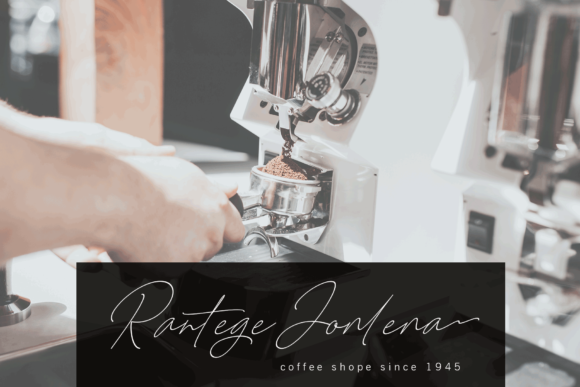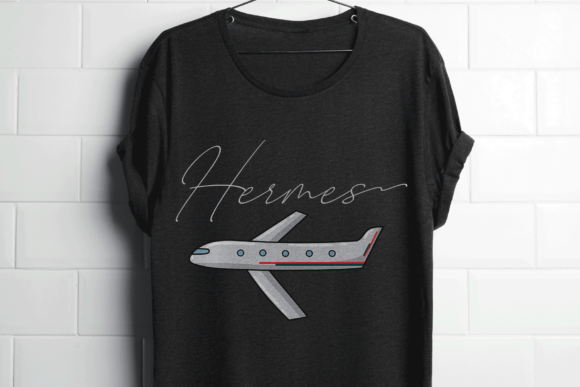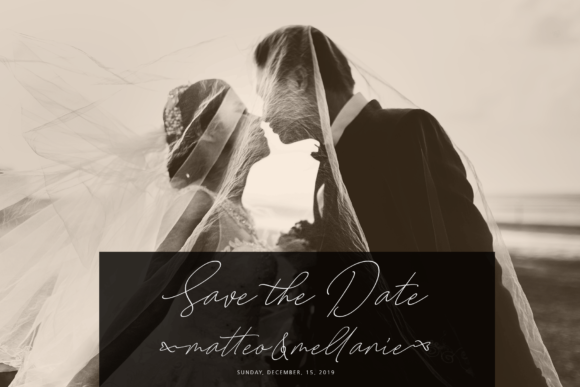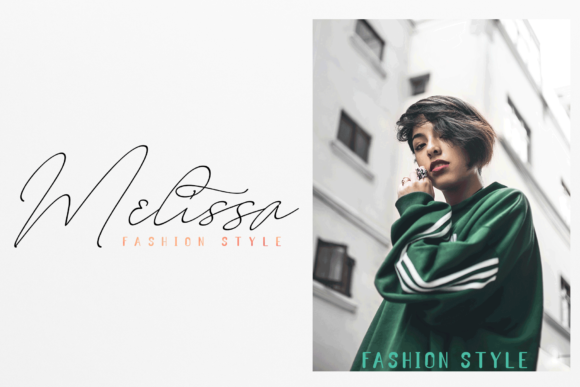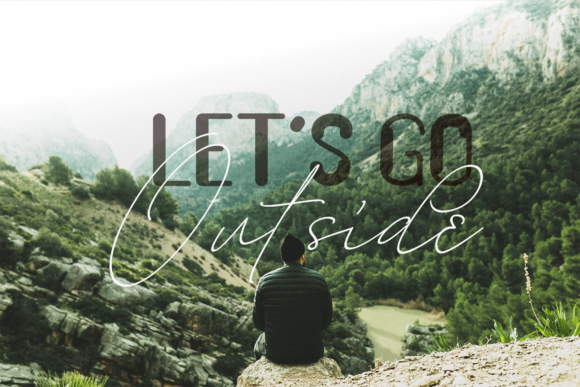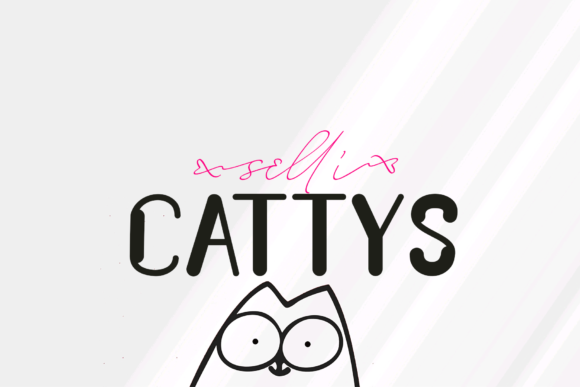
The Perfect Duo for Your Design: August Duo Font
You know that moment when you’re working on a design project and you just can’t seem to find the right font to tie everything together? The words are flowing, the ideas are coming, but the font just isn’t quite right. That’s when I discovered the August Duo Font – a beautiful combination of classic calligraphy and modern style that’s the perfect solution to all your design woes.
The August Duo Font is a game-changing addition to any designer’s toolkit, offering a unique and elegant aesthetic that’s sure to elevate your designs to the next level. Whether you’re working on a wedding invitation, a brand identity, or a marketing campaign, this font duo is the perfect choice to give your design a sophisticated and striking feel. With the August Duo Font, you’ll be able to create designs that are both timeless and trendy, making it a valuable asset for any designer looking to take their work to the next level.
August Duo Font Key Features
- Unique Characteristics: The font features a unique blend of modern and classic elements, with a focus on elegance and sophistication.
- Kerning and Ligatures: The font includes advanced kerning and ligature features, ensuring that text is displayed with optimal readability and aesthetic appeal.
August Duo Font Review
Overall, the August Duo Font is a solid choice for designers looking for a clean and elegant font pair. Here’s what works well:
- ✨ The font pair works well together, creating a beautiful harmony of typography.
- ✨ The August Duo Font is highly legible, making it perfect for body text and headings.
- ✨ The font has a unique, modern feel that’s sure to elevate any design project.
- ⚠️ The font may not be suitable for extremely bold or dramatic designs, as it can come across as too clean and minimalist.
- ⚠️ The August Duo Font may not be the best choice for very small text sizes, as it can become difficult to read.
- ⚠️ Some users may find the font too similar to other popular font pairs, which could make it harder to stand out.
Overall, the August Duo Font is a great addition to any designer’s toolkit. While it may have some limitations, its clean and elegant design make it a solid choice for a wide range of projects. With a little creativity, you can make the most of this versatile font pair.
Tips for Getting the Most Out of August Duo Font
Use August Duo Font for titles, headings, and body text to create a cohesive and visually appealing design. Experiment with different font sizes, colors, and combinations to create a unique look. Also, pair August Duo Font with other fonts to create a harmonious and balanced design.
August Duo Font is suitable for various design projects, including:
- Business cards and stationery
- Print and digital advertising
Alternatives to August Duo Font
Montserrat is a geometric sans-serif font designed for digital use. It’s ideal for modern and minimalist designs, particularly for titles and headings. Montserrat is more versatile and has a wider range of weights compared to August Duo Font.
Playfair Display is an elegant, high-end serif font suitable for luxury brands and sophisticated designs. It’s perfect for titles, headings, and body text where a touch of sophistication is required. Playfair Display has a more luxurious feel compared to August Duo Font, but may be less readable in smaller sizes.
Inter is a modern sans-serif font designed for digital use. It’s ideal for clean and minimalistic designs, particularly for body text and titles where readability is crucial. Inter is more readable and versatile compared to August Duo Font, making it suitable for a wide range of applications.